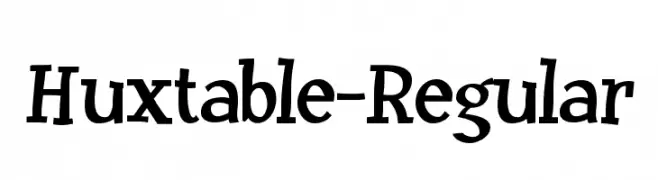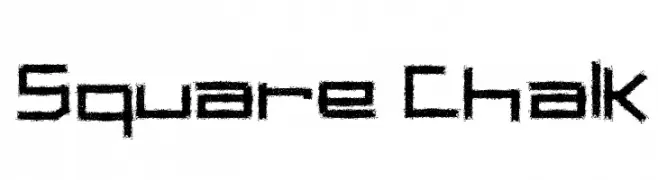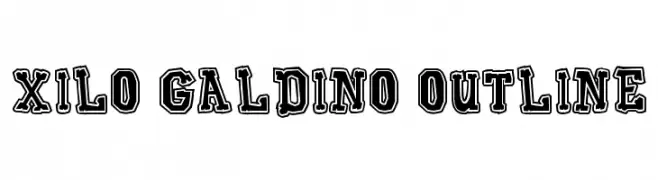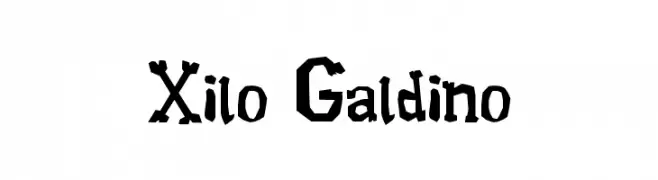
A bold, dynamic serif font with medium contrast and a playful slant.
A bold, flame-inspired font with dramatic, dynamic characters.
A bold, chalk-textured font with a hand-drawn, informal style.
Bold geometric numerals paired with clear, functional media and utility icons.
A bold, outlined font with a vintage and decorative style.
A bold, handcrafted font with high contrast and irregular, organic shapes.